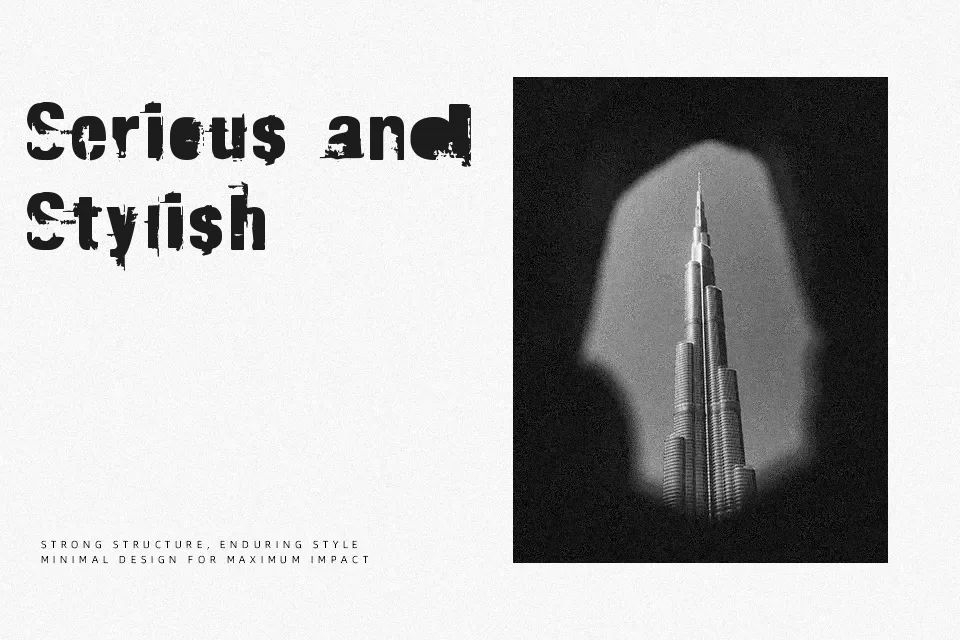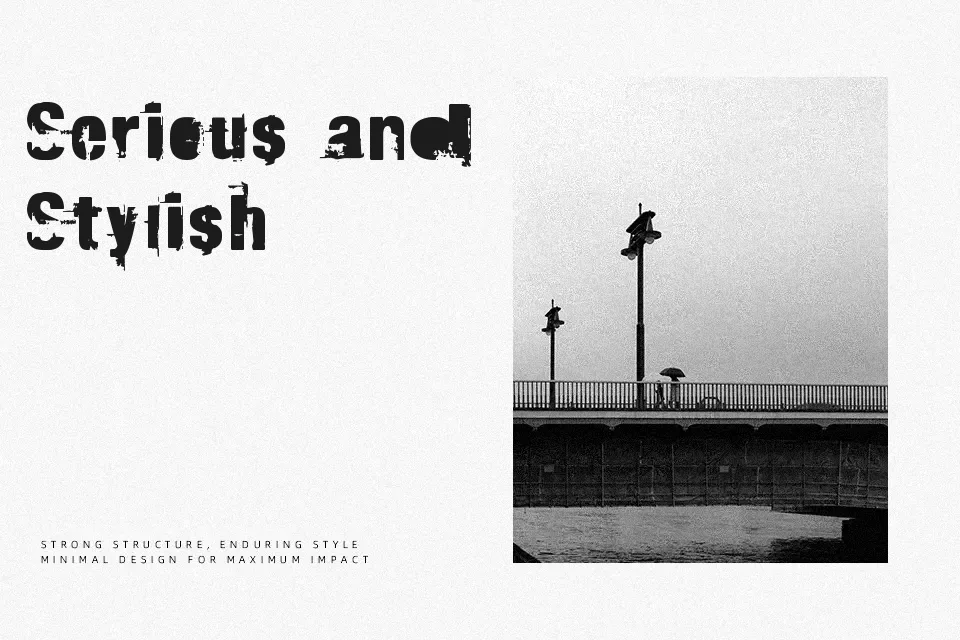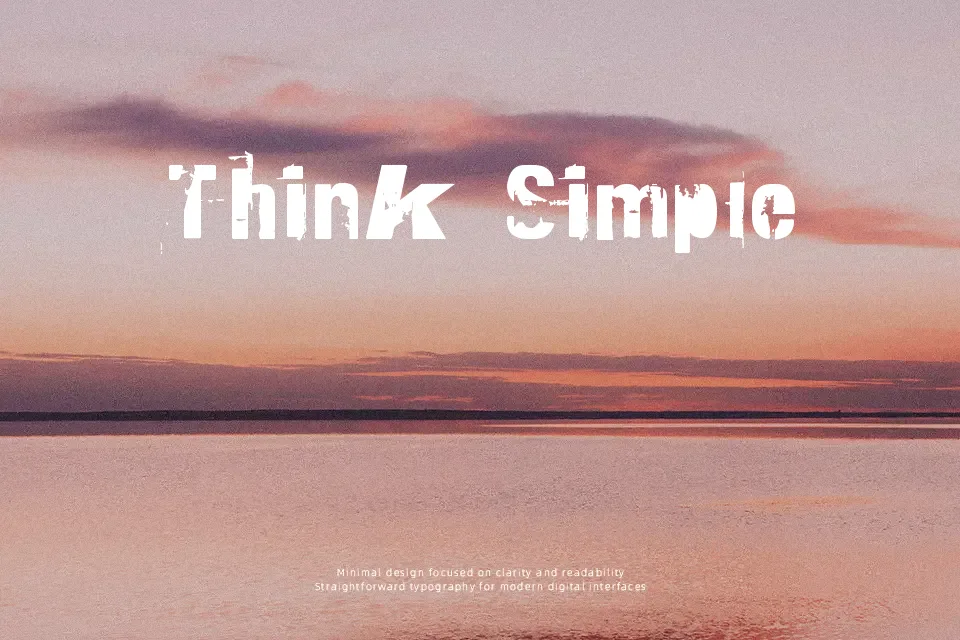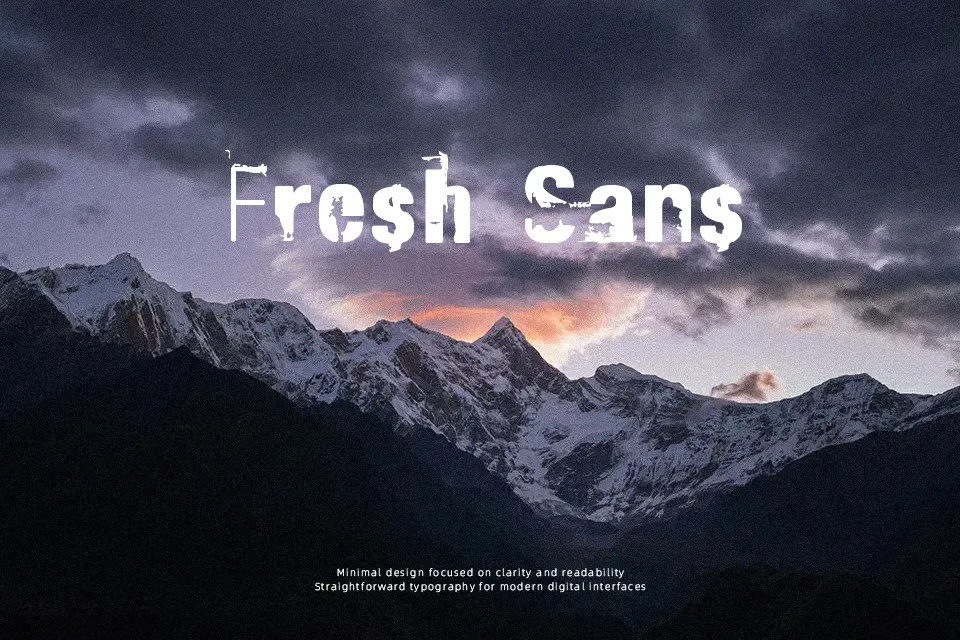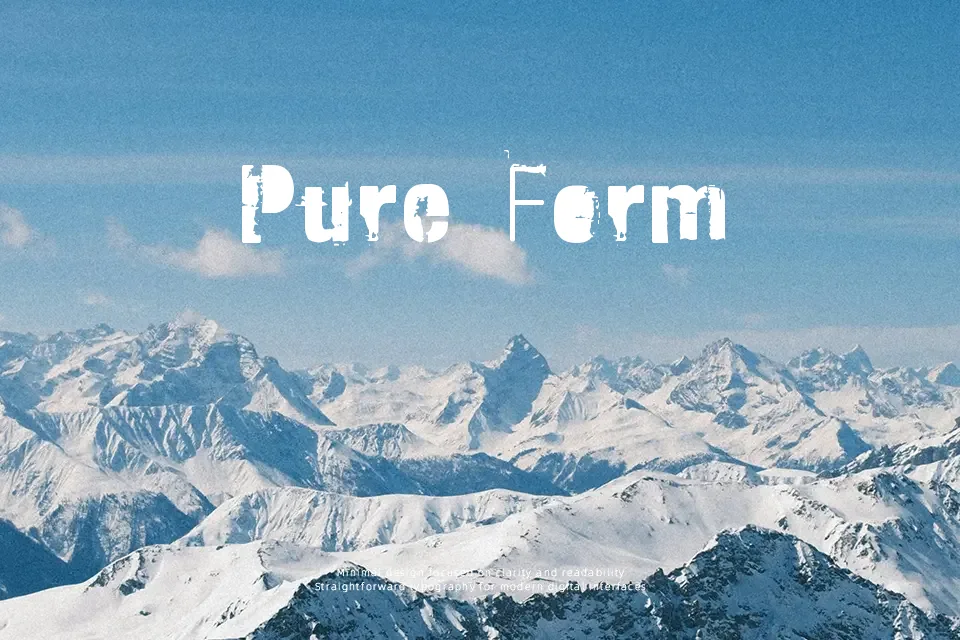
RvD Traktorfahrer Font
Designed by Rich.vom.Dorf.
The RvD Traktorfahrer Font immediately establishes a dominant visual presence through its heavily degraded, grunge-style letterforms. Characterized by aggressive erosion and irregular, rough strokes, this display typeface features a bold structural foundation that breaks apart dynamically at the edges. The rugged, inconsistent textures provide a striking, organic grit that feels genuinely weathered. The tight spacing helps maintain clarity in larger headlines, ensuring the fragmented characters remain cohesive. It performs exceptionally well in distressed apparel graphics, music festival posters, and extreme sports branding. However, the heavy structural damage reduces continuous reading comfort significantly. These dense, shattered forms become unreadable when scaled down, making the typeface entirely unsuitable for extended body text or small interface elements.
distressed apparel graphics
extreme sports branding
bold product packaging
extended paragraph text
corporate financial reports
Perfect for branding, headline, and poster, with a bold and decorative style.